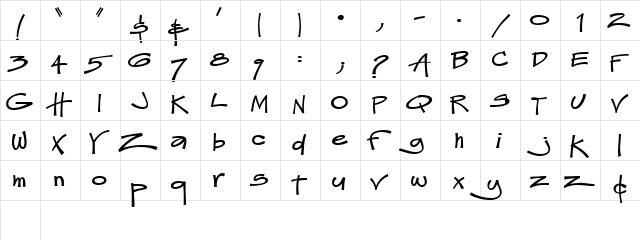
0 Hillbilly Opteamaw DNA Regular
Design Context for 0 Hillbilly Opteamaw DNA Typeface
0 Hillbilly Opteamaw DNA is a composed and adaptable typeface that performs quietly and consistently across a wide range of design contexts.